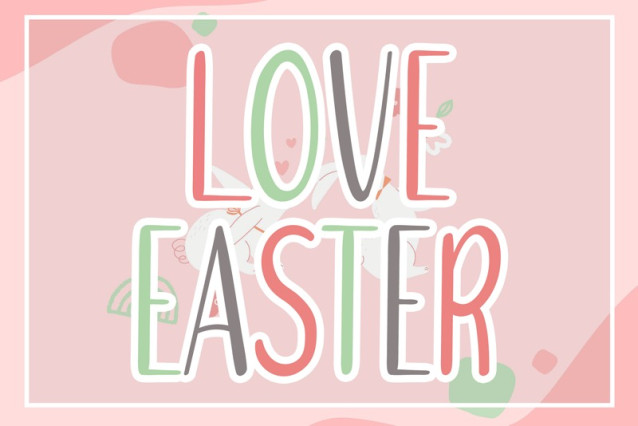
Love Easter Font
Love Easter Font is a fun and festive display font. It is suitable for any winter and holiday branding, product packaging, invitations, quotes, t-shirts, labels, posters or logos.